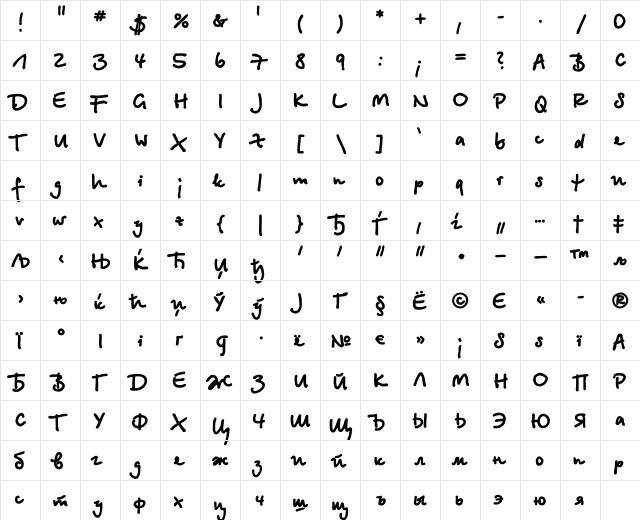
BetinaScriptExtraC Regular
Design Context for BetinaScriptExtraC Typeface
BetinaScriptExtraC flows with the natural rhythm of handwritten lettering, making it ideal for designs that call for warmth and personal expression.
Font Pairing: Combine BetinaScriptExtraC with a simple geometric sans for maximum contrast — the tension between flowing curves and clean structure is a classic typographic pairing.
Pro Tip: Use BetinaScriptExtraC for short runs of text — names, titles, or taglines. Extended body copy in script faces tires the eye quickly.